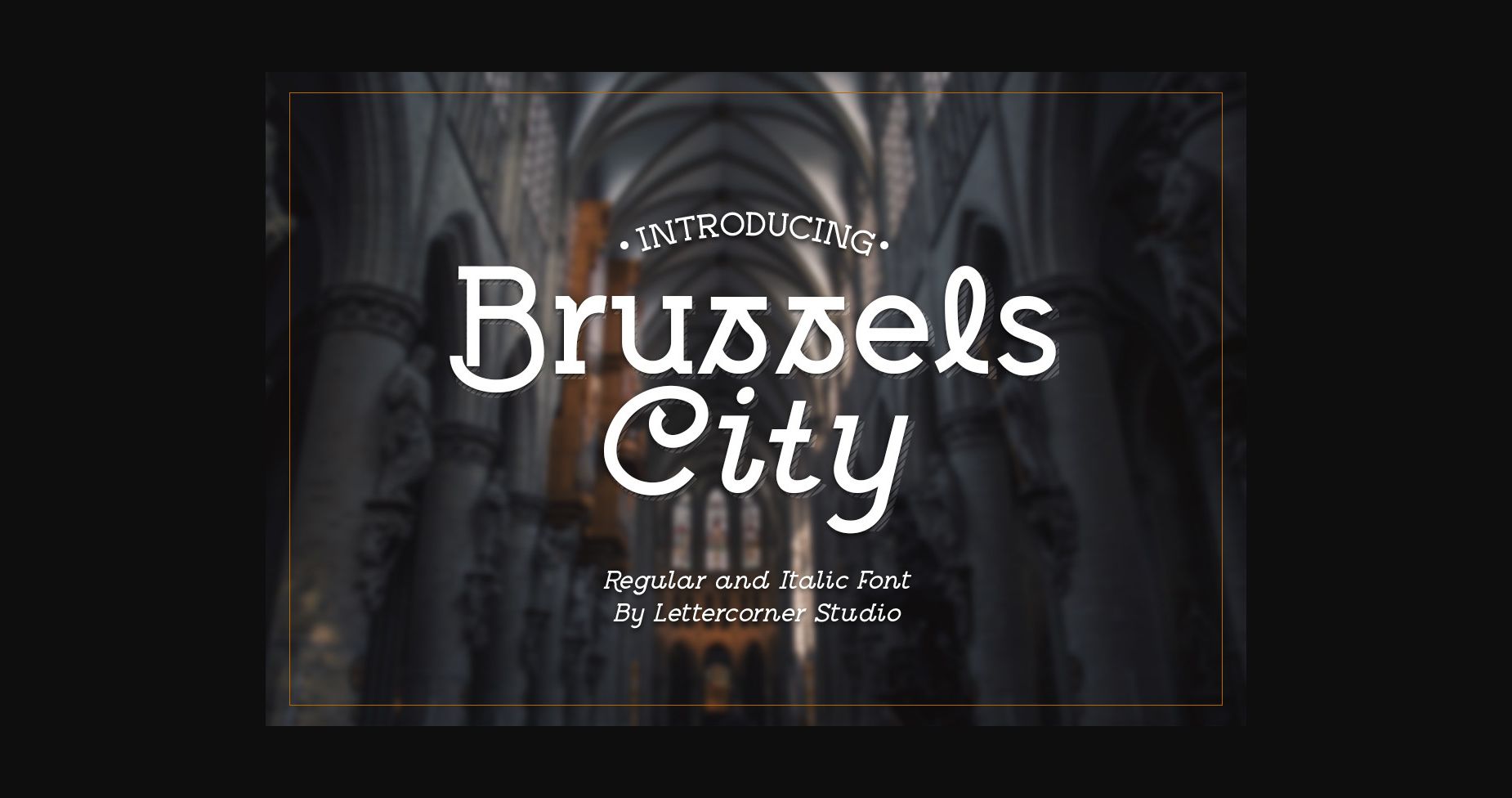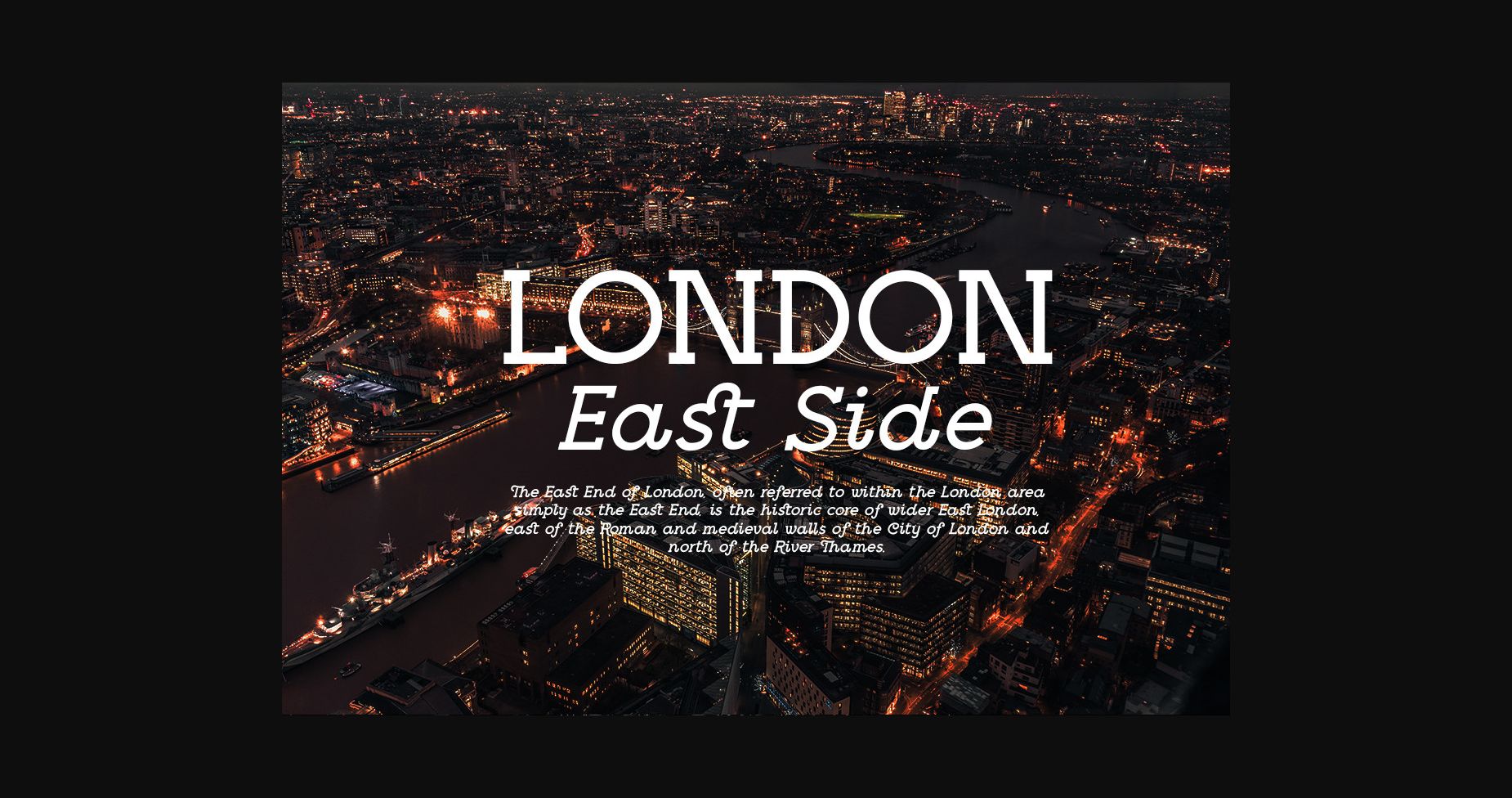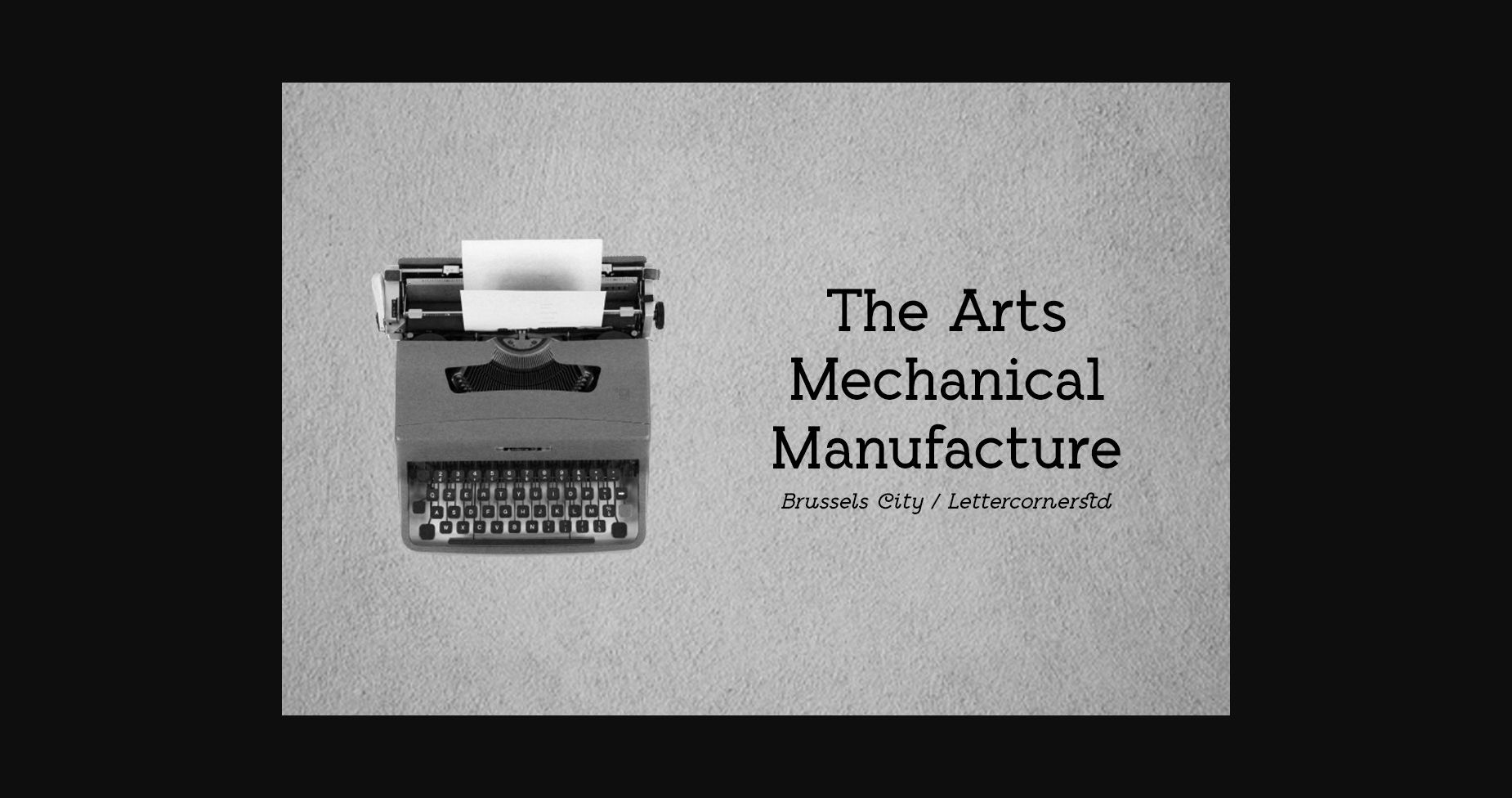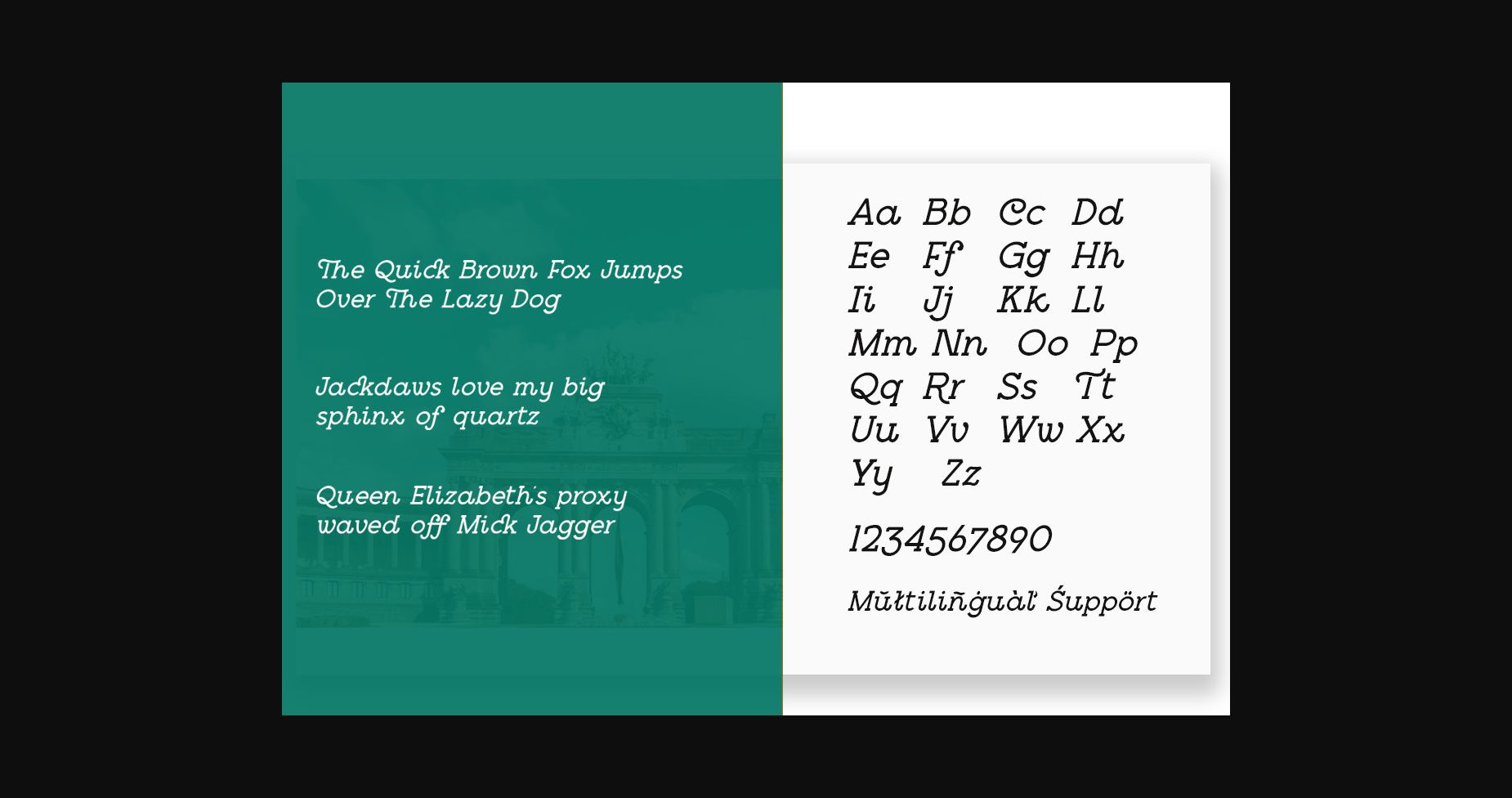
About Brussels City Font
Brussels City is an elegant and modern sans serif font. This minimalist and clean vibe can easily apply to your favorite designs such as book covers, magazines, social media posts, invitations, and so much more!